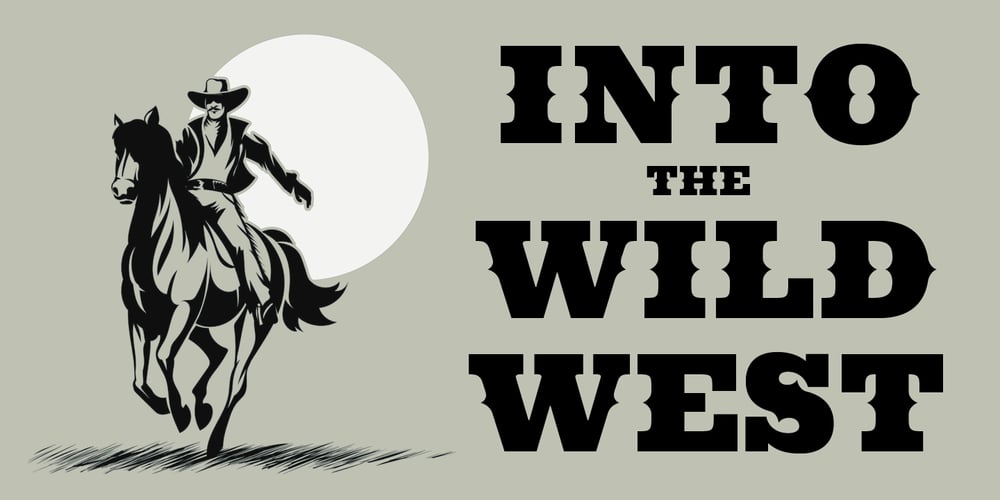
Cowboy Western Font Family was designed by Michael Hagemann and published by FontMesa. Cowboy Western contains 2 styles and family package options. Cowboy Western is based on an old woodtype font from the late 1800’s Saddle up boys and girls the new Cowboy Western is here, the perfect font for when you need to put a little giddy up in your chickabiddy. This 2013 updated version adds alternate letters, additional language support for eastern, central and western European countries. The glyph set includes Latin extended A, B and Latin extended additional for Vietnamese plus Pinyin support for Chinese transliteration, finally we’ve finished the set with some discretionary ligatures.